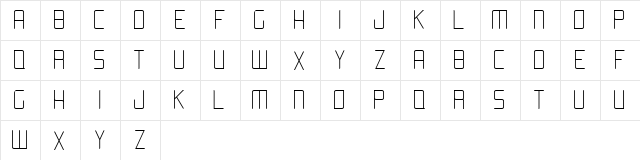
AROMA Light
| Designer | Laura Pol |
Design Context for AROMA Typeface
AROMA is a composed and adaptable typeface that performs quietly and consistently across a wide range of design contexts. Its slender proportions lend an understated elegance to any composition.